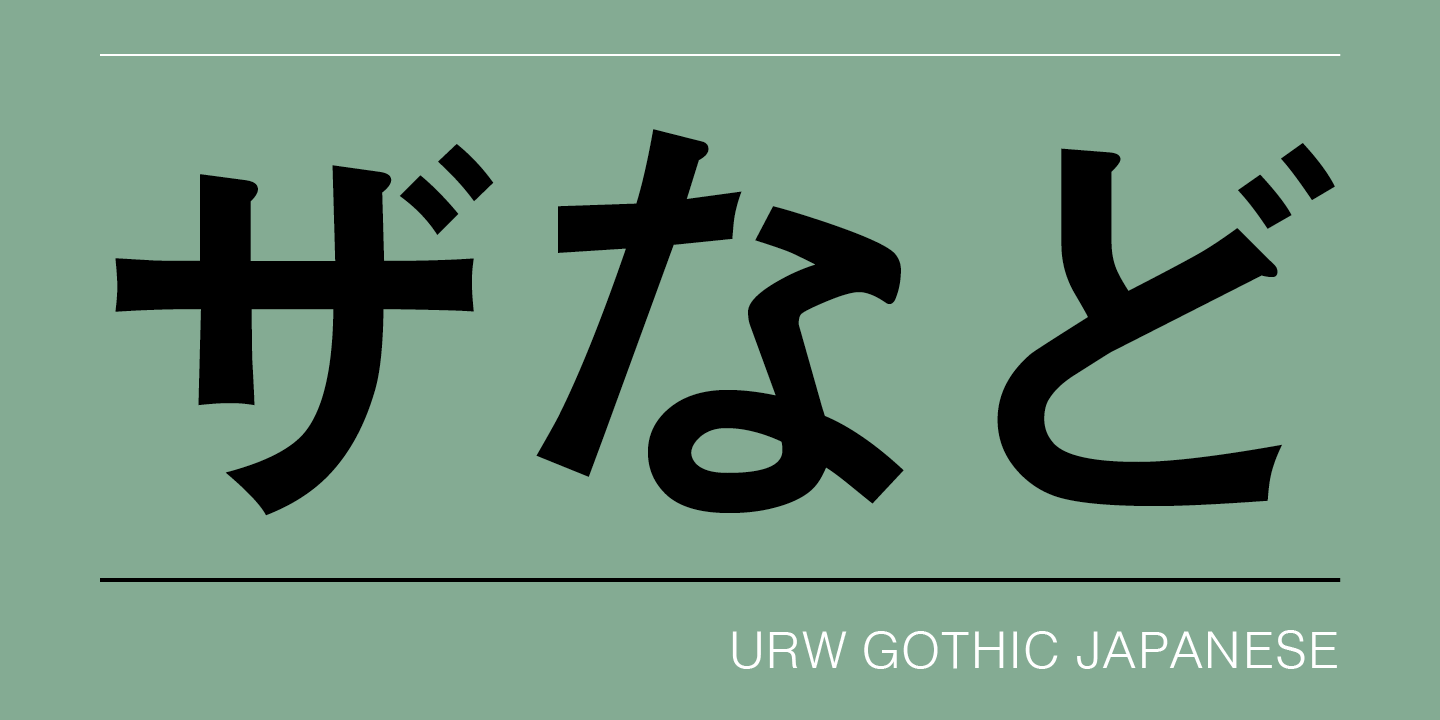
URW Gothic Japanese Font is perfect for modern tech interfaces, Japanese restaurant branding, anime and manga publications, contemporary art exhibitions, minimalist product packaging, zen wellness centers, architectural firm identities, and cutting-edge digital applications.
URW Gothic Japanese Font is exciting because it seamlessly merges the precision and minimalist aesthetic of Japanese design philosophy with contemporary Gothic typography, creating a typeface that embodies both the technological innovation of modern Japan and the timeless elegance of traditional Japanese visual culture. Its clean geometry and cultural sophistication make it the perfect choice for brands seeking to communicate innovation, precision, and authentic Japanese aesthetic values.
The URW Gothic Japanese Font family includes multiple weight options: URW Gothic Japanese Light, URW Gothic Japanese Regular, URW Gothic Japanese Medium, URW Gothic Japanese Bold, URW Gothic Japanese Black, and URW Gothic Japanese Condensed, along with comprehensive Unicode support and Japanese character sets, providing designers with extensive tools for creating authentic Japanese-inspired brand experiences.
When exploring Japanese typography solutions, URW Gothic Japanese Font Free Download stands out as the premier choice for designers working on tech-forward and Japanese cultural projects that require both modern functionality and authentic cultural resonance. This remarkable typeface captures the essence of Japanese design principles while offering the technical precision that contemporary digital and tech brands demand. The font's clean lines and cultural authenticity create immediate connections with audiences who appreciate Japanese aesthetics and innovative design.
Professional designers consistently rely on URW Gothic Japanese Font for projects requiring genuine Japanese sophistication and modern appeal. Its expertly crafted letterforms feature minimalist influences that work exceptionally well in both digital interfaces and traditional print applications. The font's ability to convey innovation and cultural authenticity while maintaining perfect readability makes it invaluable for comprehensive brand identity systems in the technology, hospitality, and authentic Japanese product sectors.
Whether you're developing tech startup identities, creating Japanese restaurant branding, or designing cultural exhibition materials, URW Gothic Japanese Font delivers the authentic Japanese character and modern sophistication that resonates with audiences seeking genuine Japanese experiences and cutting-edge design. Its cultural heritage and contemporary excellence ensure your projects honor Japanese traditions while maintaining professional standards that attract modern consumers and tech enthusiasts.